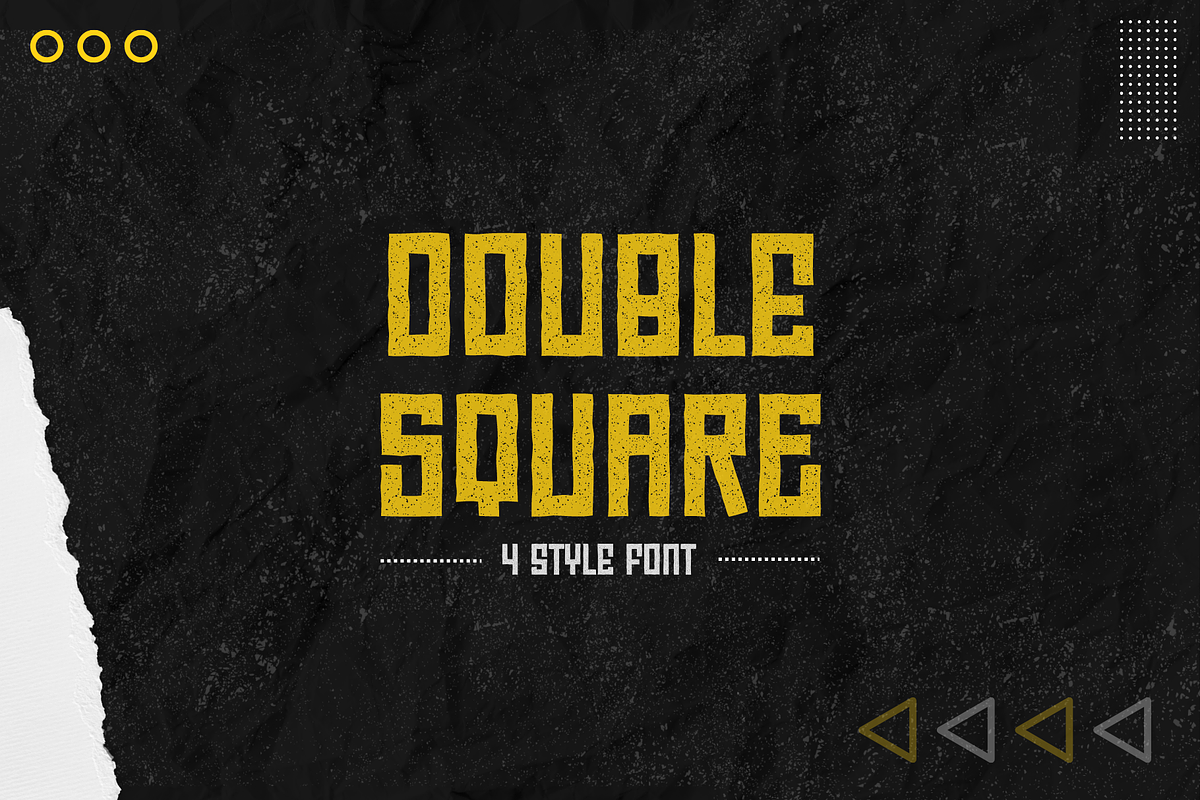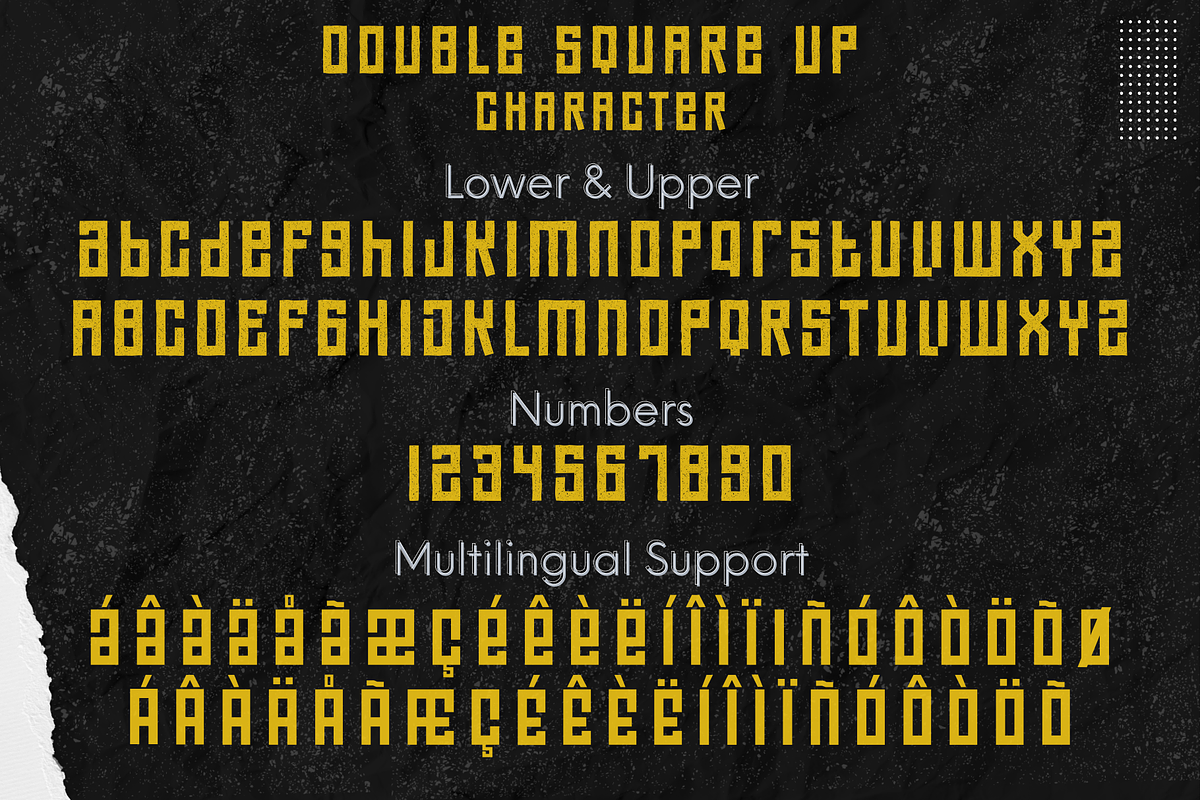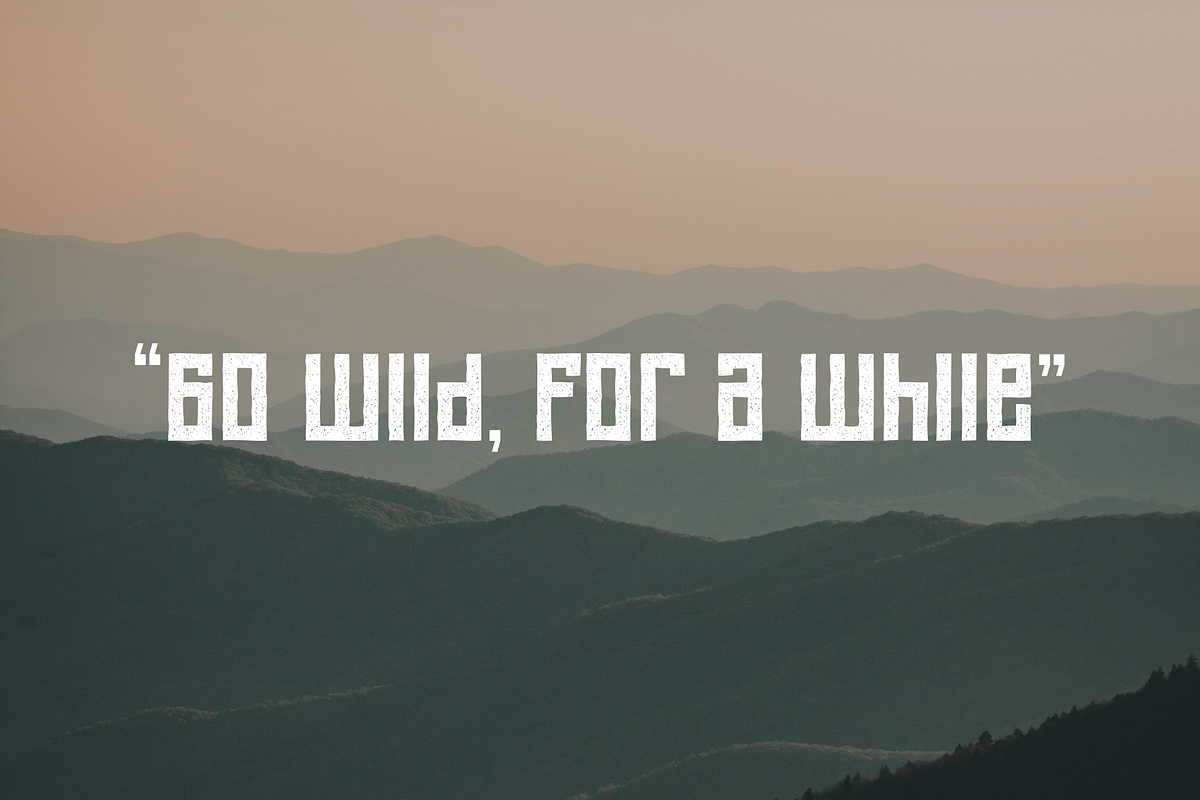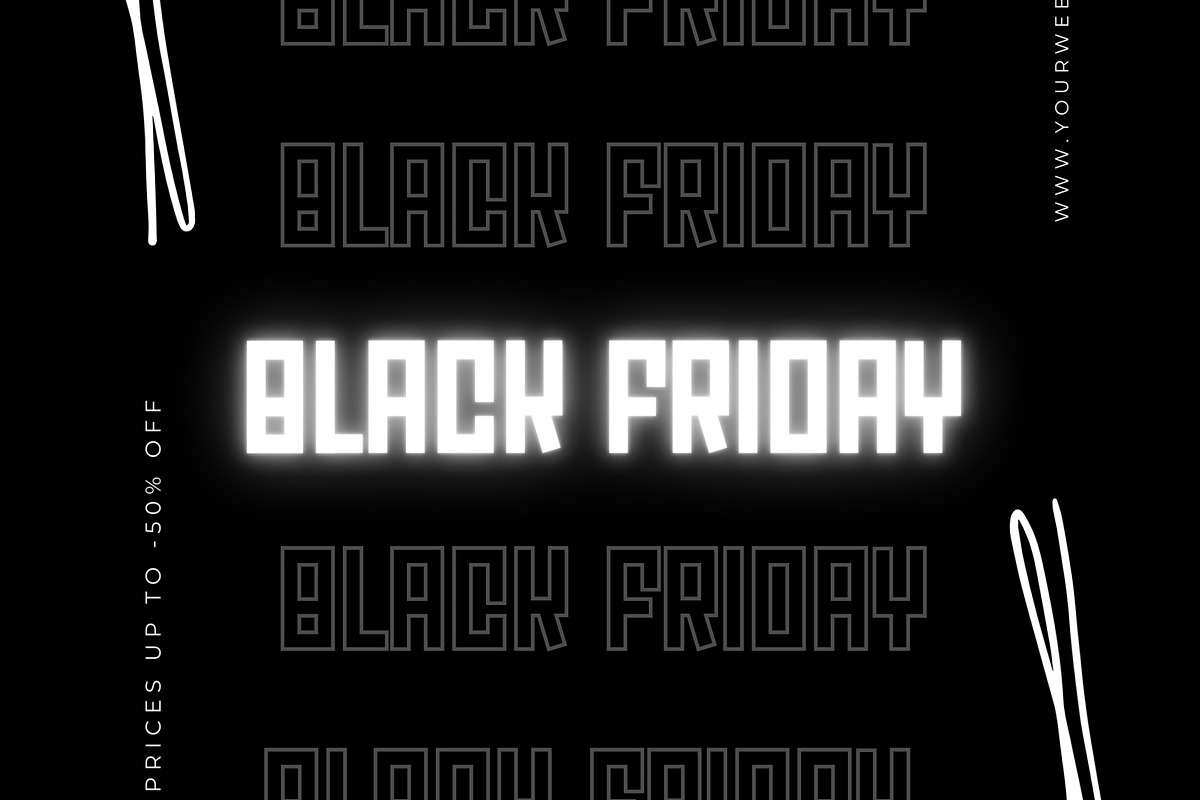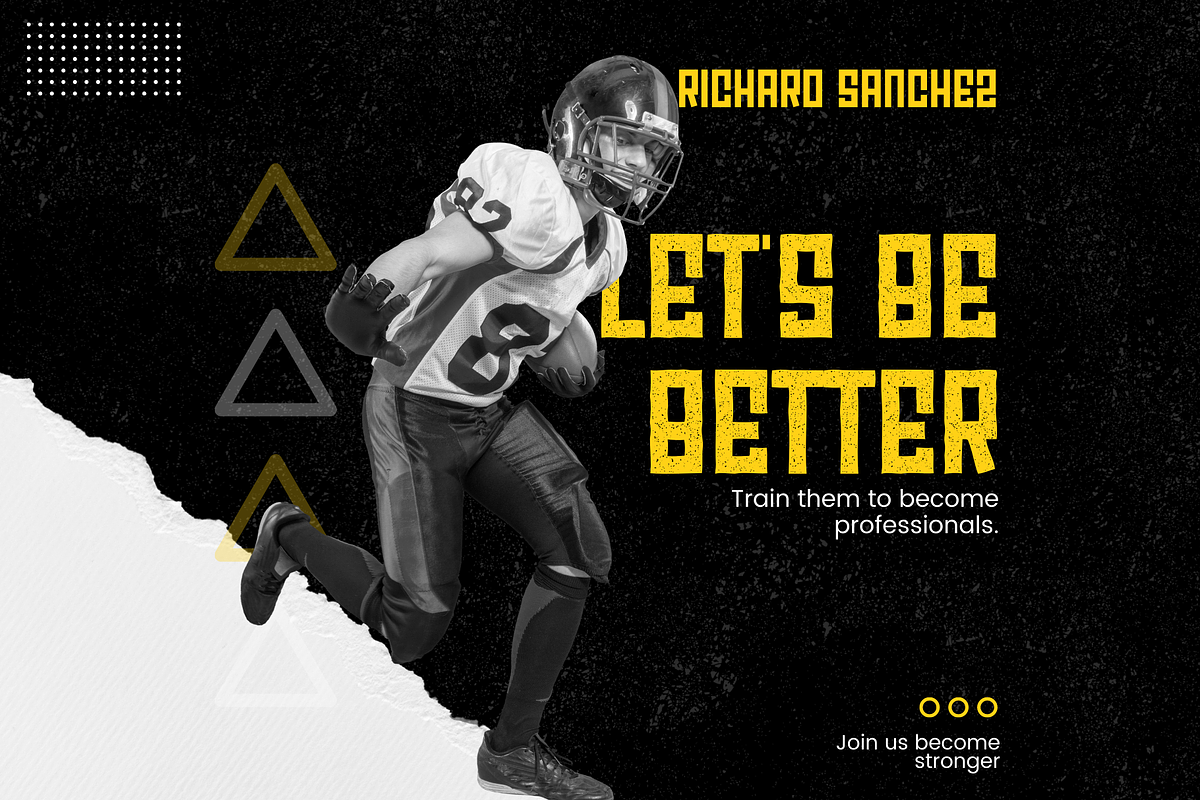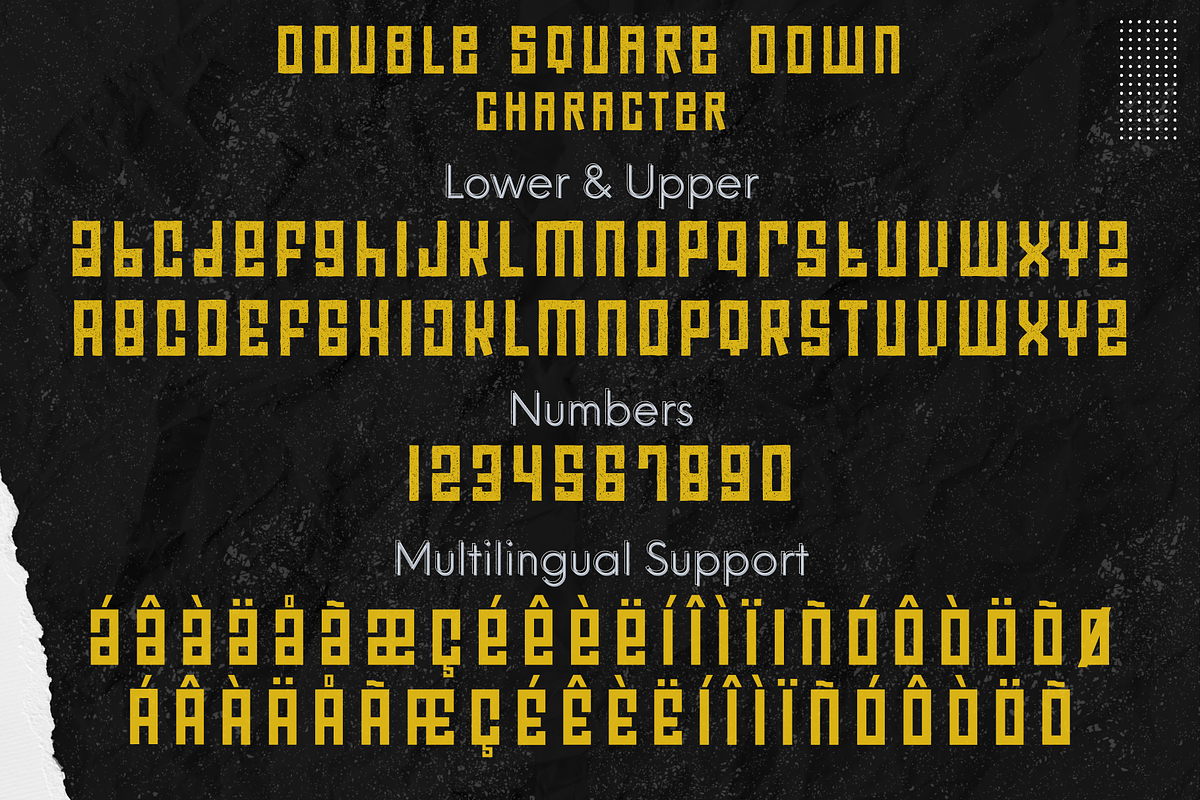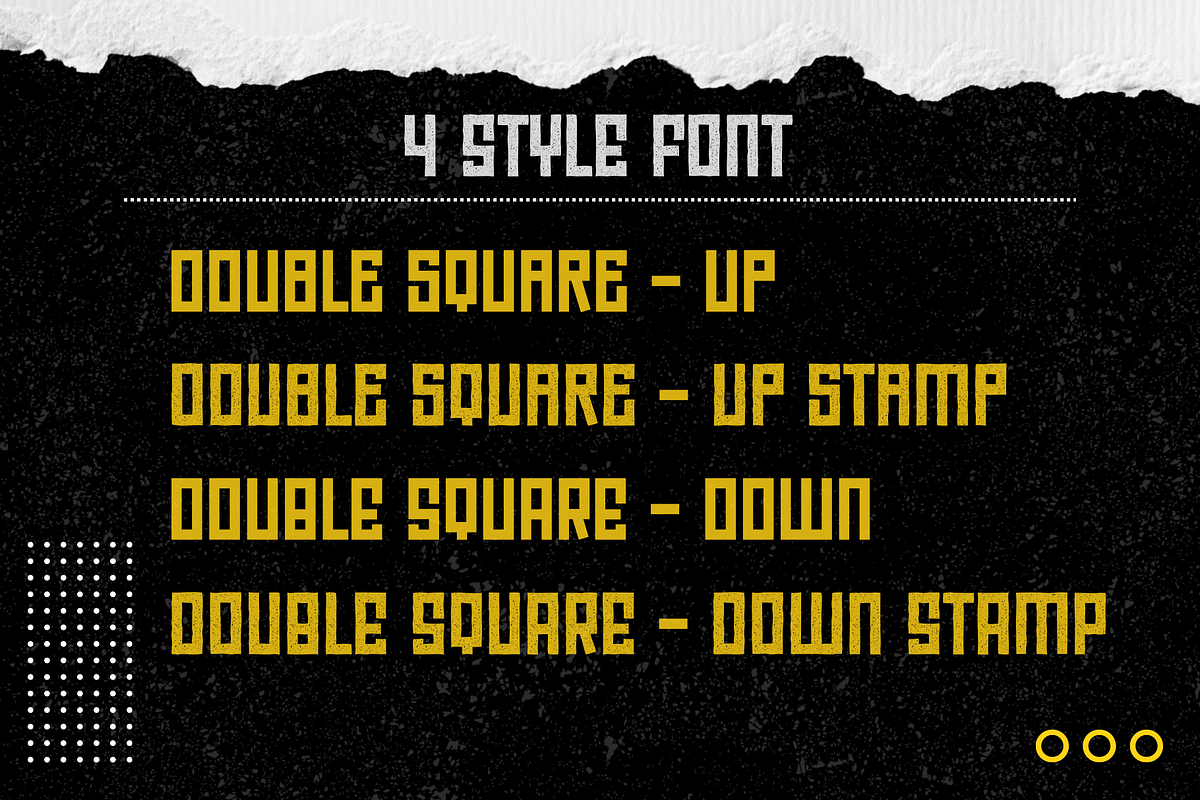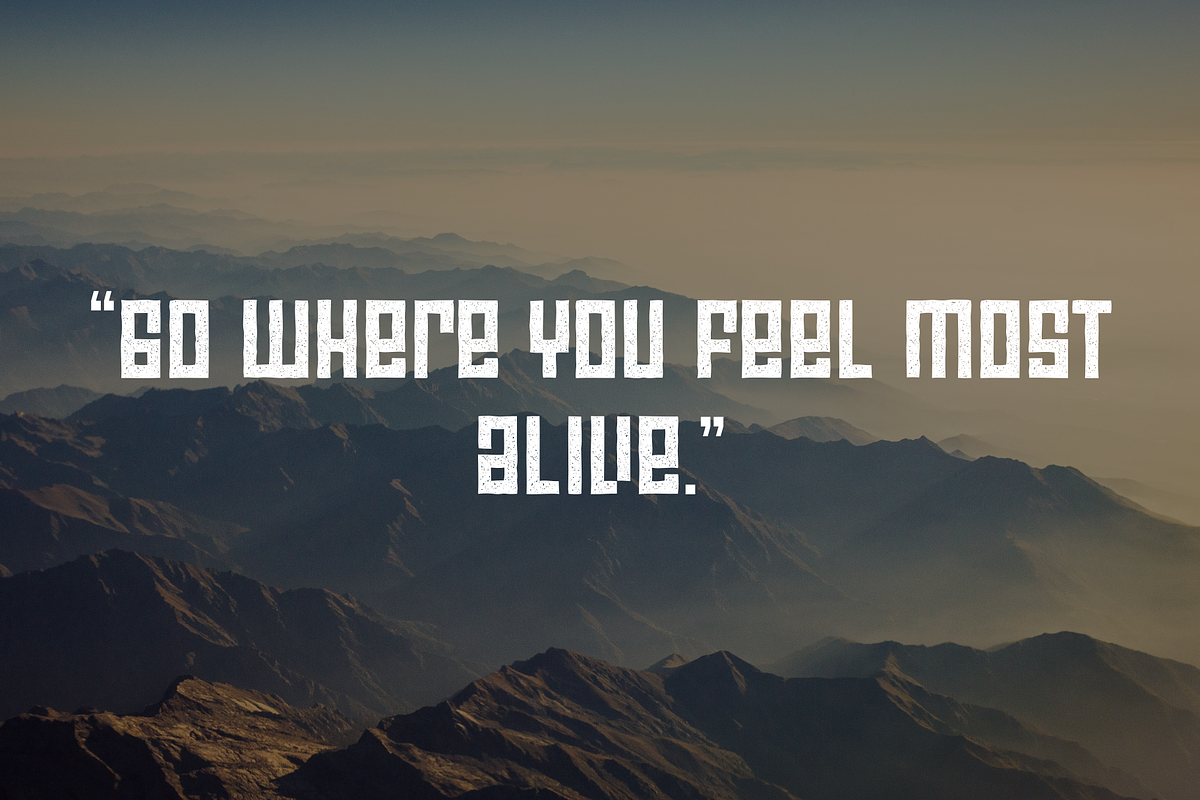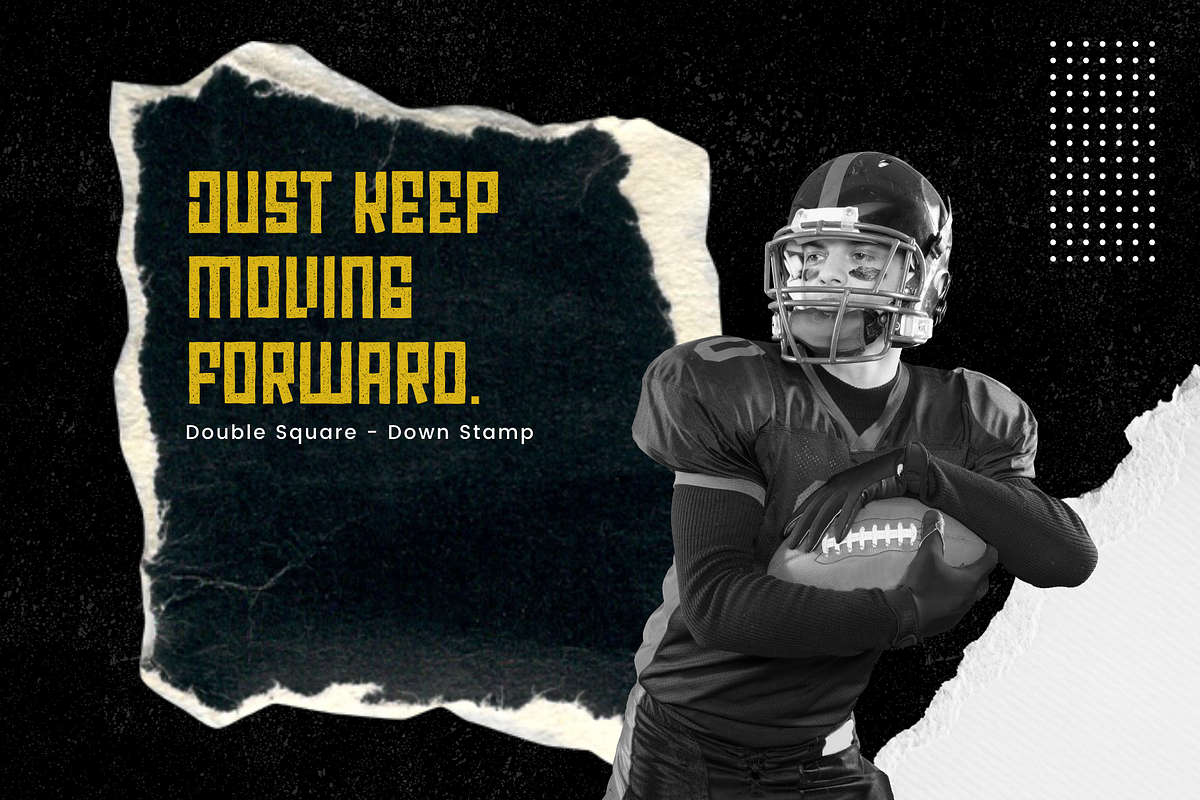
Double Square Font
Double Square futuristic display font. A great thick font that will make your work and message pop, It can be used for sports title, headline, logo, poster, Instagram or social media ads, branding and many other design projects. Add it confidently to your favorite creations and let yourself be amazed by the outcome generated.